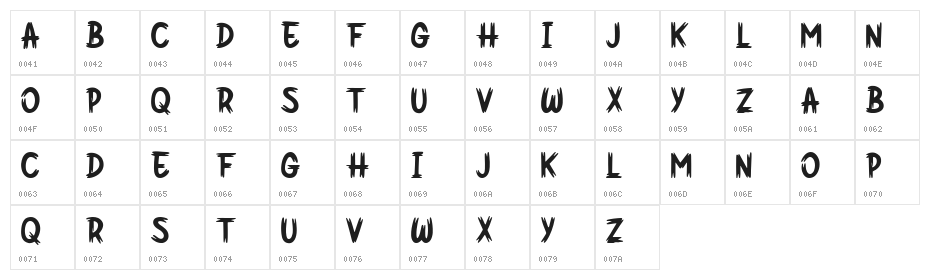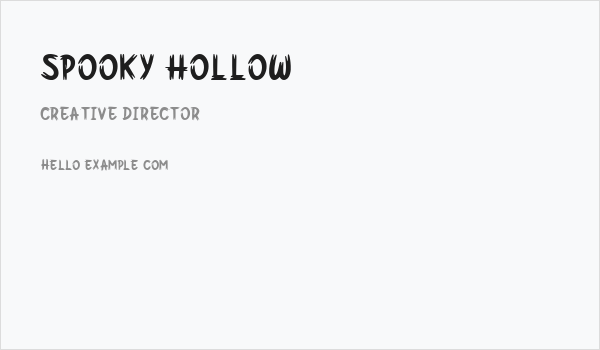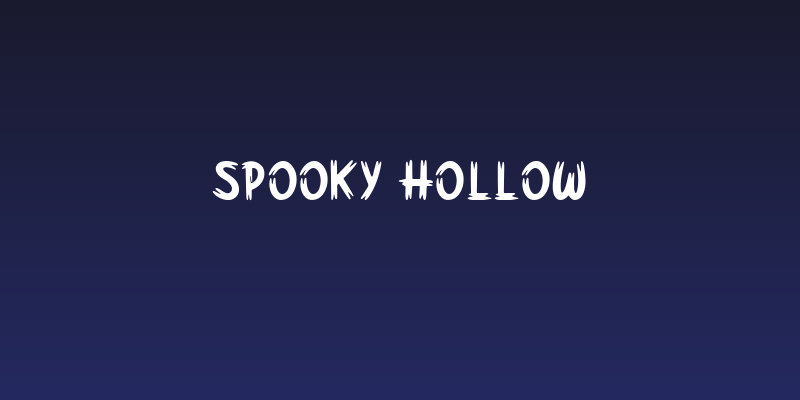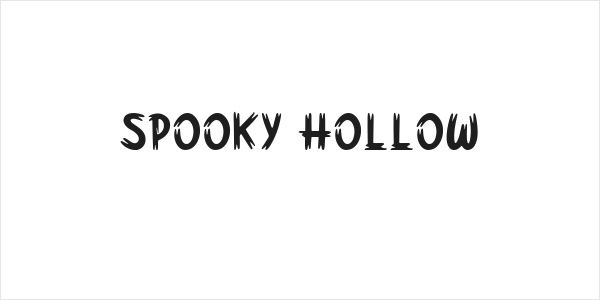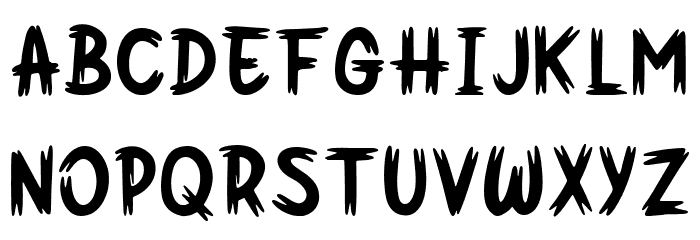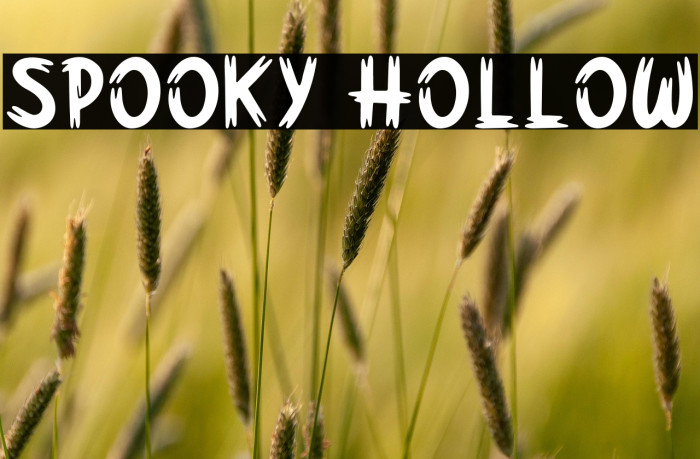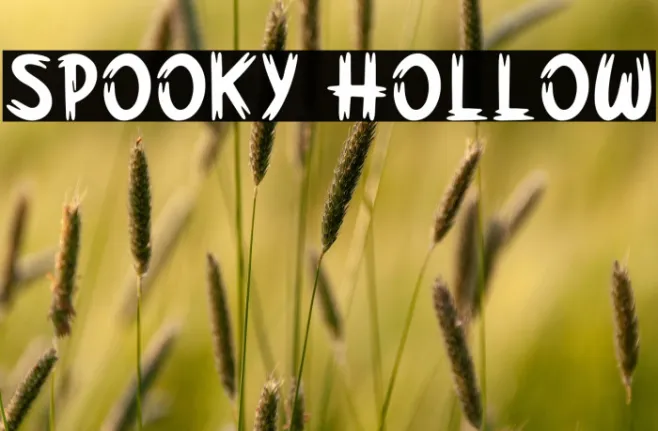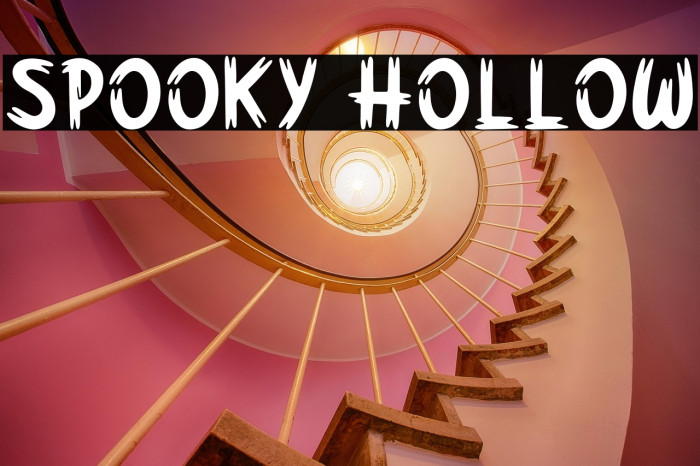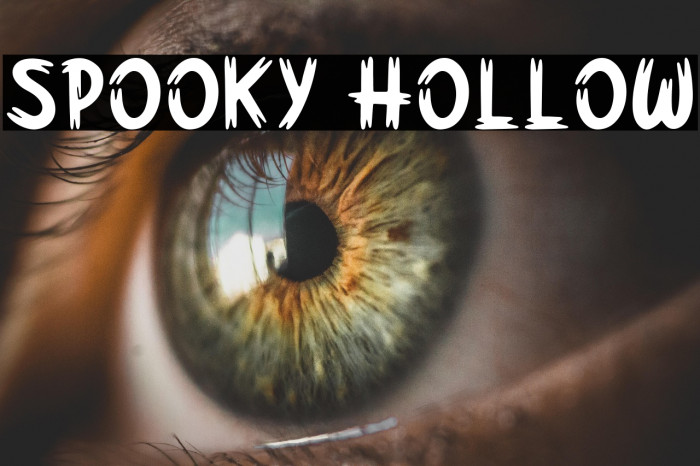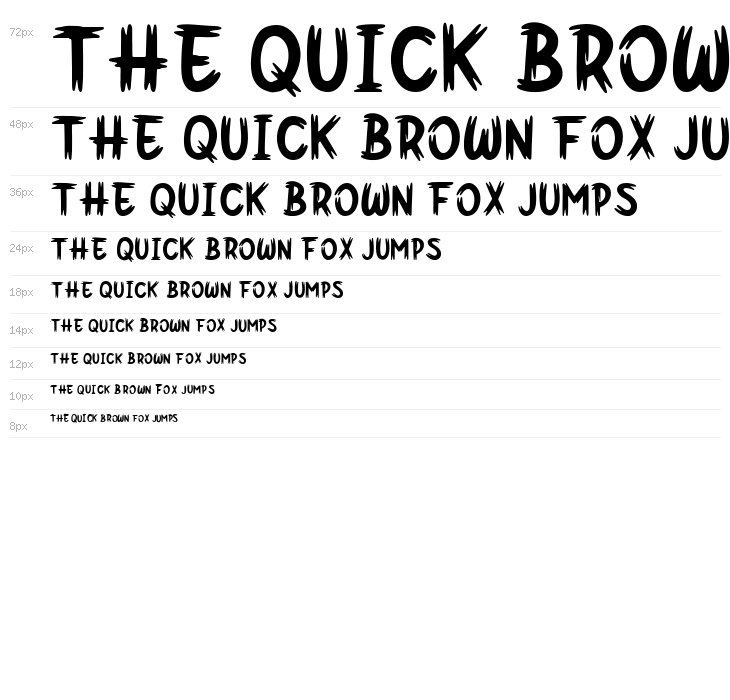
Spooky Hollow Font
Spooky Hollow Description
This font features a bold and jagged design, reminiscent of classic horror themes. The characters have an uneven, distressed appearance, with sharp edges and irregular strokes that evoke a sense of mystery and suspense. The uppercase letters are particularly striking, with exaggerated serifs and a slightly condensed form that adds to the eerie aesthetic. The overall style is highly decorative, making it ideal for thematic projects that require a spooky or Halloween-inspired look. The font's unique character shapes and dramatic flair make it stand out, ensuring that any text set in this typeface will capture attention.
| Proposed Projects | Ideal for Halloween-themed posters, horror movie titles, haunted house flyers, and spooky event invitations. |